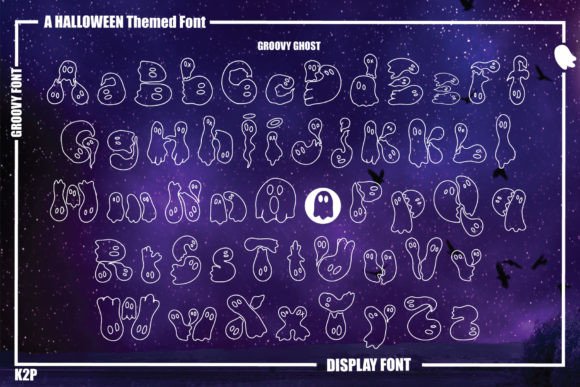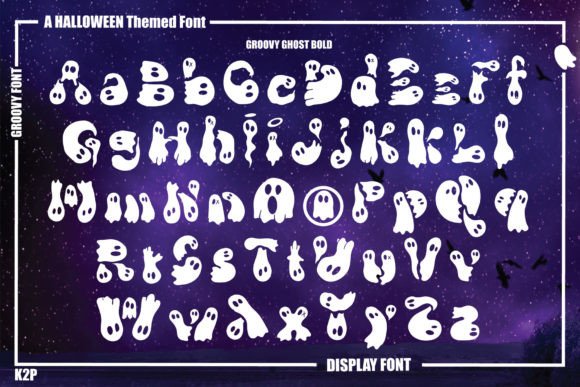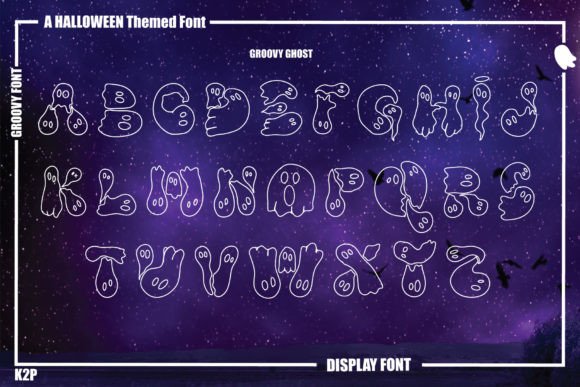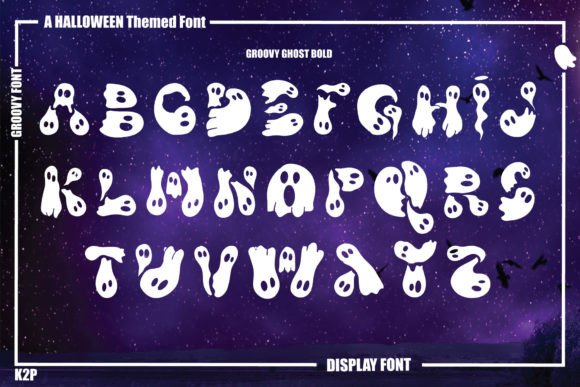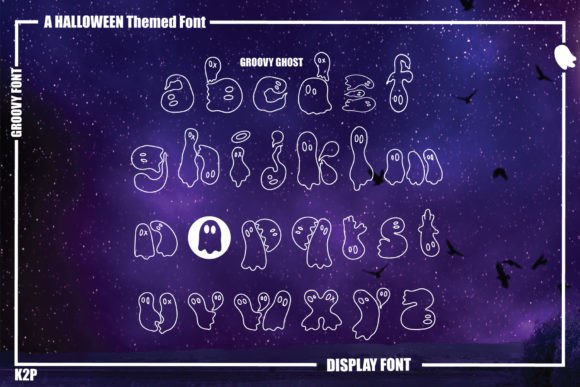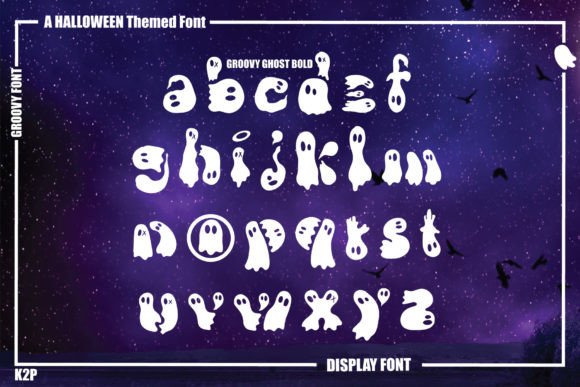
The Spooky Charm of Groovy Ghost Font
As the leaves start to change and the air grows crisp, my mind begins to wander to the spookiest time of the year – Halloween. It’s a season that inspires creativity, and I’m always on the lookout for unique elements to bring my spooky projects to life. Whether it’s a haunted house sign, a ghostly invitation, or a witchy craft, the right font can make all the difference.
That’s where Groovy Ghost Font comes in – a thick-lettered, spooky decorative font that’s perfect for any Halloween-related project. Its eerie charm is sure to add a touch of whimsy to your designs, making it a valuable tool for designers looking to create memorable and eye-catching projects. With the Groovy Ghost Font, the possibilities are endless, and your imagination is the only limit.
Groovy Ghost Font Key Features
- Font Family: Groovy Ghost Font is a unique, hand-drawn sans-serif font designed to evoke a sense of nostalgia and playfulness.
- Character Count: The font includes a wide range of characters, including uppercase and lowercase letters, numbers, punctuation marks, and special characters.
- Size and Resolution: Designed to be scalable, Groovy Ghost Font is suitable for use in various sizes and resolutions, from small text to large headlines.
- Unique Characteristics: The font features a distinctive, hand-drawn style with irregular shapes and subtle imperfections, giving it a unique and eye-catching appearance.
Groovy Ghost Font Review
When I first laid eyes on the Groovy Ghost Font, I couldn’t help but feel a sense of excitement. The font’s unique, playful style had me hooked. Here are a few things that really work well:
- ✨ Unconventional style: The Groovy Ghost Font’s quirky design makes it perfect for adding a touch of whimsy to your projects.
- ✨ Versatility: Whether you’re working on a retro-themed poster, a children’s book, or a quirky website, this font is sure to bring a smile to your face.
- ✨ Customization options: The font comes in a range of weights and styles, giving you the flexibility to customize it to suit your needs.
However, I do have a few concerns:
- ⚠️ Limited legibility: At smaller font sizes, the Groovy Ghost Font can be a bit difficult to read, which may limit its use in certain applications.
- ⚠️ Compatibility issues: I experienced some compatibility problems with certain software and operating systems, which may require some extra tweaking to get it working smoothly.
Overall, I’d give the Groovy Ghost Font 4 out of 5 stars. While it’s a unique and versatile font, its limitations may make it less suitable for certain projects. However, if you’re looking for a font that adds a touch of personality to your work, this might be just the ticket.
Tips for Getting the Most Out of Groovy Ghost Font
Here are some tips for getting the most out of the Groovy Ghost Font:
- Use the font in combination with other creative fonts to add visual interest to your design.
- Use the font in a variety of contexts, such as headings, body text, and titles.
Here are some common use cases for the Groovy Ghost Font:
- Party and event invitations
For optimal readability, we recommend using the Groovy Ghost Font at a size between 18-24 points, with a line height of at least 1.5 times the font size. This will help to balance the flowing, handwritten nature of the font with clear, legible text.